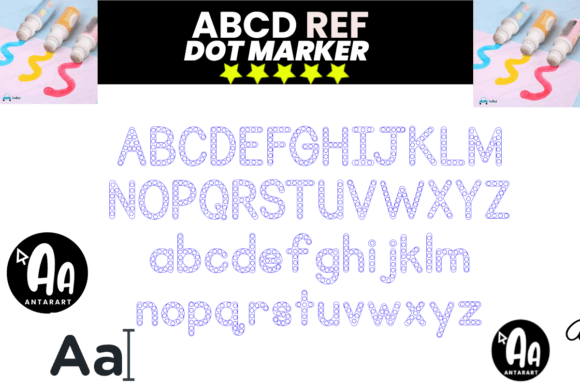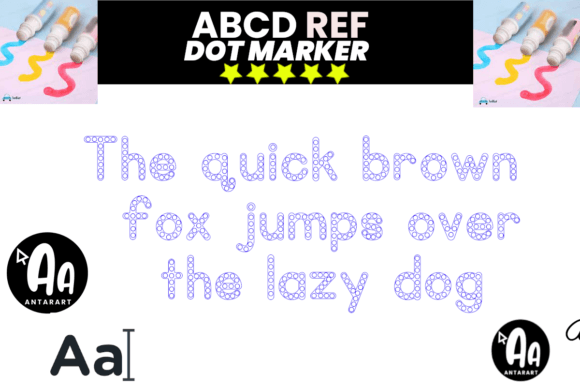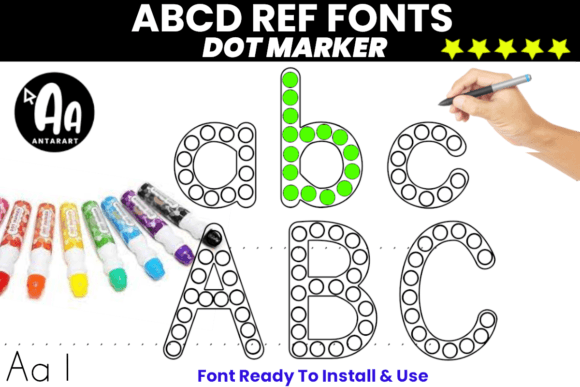
The Abc Dot Marker Font: A Fun and Interactive Learning Resource
As a designer, I recall working on a project for a children’s educational brand, tasked with creating engaging and interactive worksheets that would make learning the alphabet a fun experience. I was on the hunt for a font that could help me achieve this goal, and that’s when I stumbled upon the Abc Dot Marker Font. Based on the D’Nealian Method US school, this dotted display font has been a game-changer for creating thousands of worksheets that make learning the print alphabet an enjoyable experience.
A Personal Review: What I Love and What I Don’t
- 🎉 The Abc Dot Marker Font is perfect for creating interactive worksheets, making learning fun and engaging for kids.
- ✅ The font is easy to use and comes with a wide range of glyphs and stylistic alternates, giving me plenty of creative options.
- 📚 The font is based on the D’Nealian Method US school, making it a great resource for teachers and educators.
While the Abc Dot Marker Font is an excellent resource, there are a few things to keep in mind. For example, 🤔 some users may find the font a bit limited in terms of customization options. Additionally, ⚠️ the font may not be suitable for large-scale commercial projects or complex designs.
The Designer Inspiration Behind the Abc Dot Marker Font
The Abc Dot Marker Font was inspired by the D’Nealian Method US school, which emphasizes the importance of handwriting and letter recognition in early childhood education. The font was designed to be a fun and interactive way for kids to learn the print alphabet, and its dotted design makes it perfect for creating worksheets and educational resources.
Q: What is the Abc Dot Marker Font?
A: The Abc Dot Marker Font is a dotted display font based on the D’Nealian Method US school, designed to help kids learn the print alphabet in a fun and interactive way.
Q: Is the Abc Dot Marker Font easy to use?
A: Yes, the Abc Dot Marker Font is easy to use and comes with a wide range of glyphs and stylistic alternates, making it perfect for creating worksheets and educational resources.